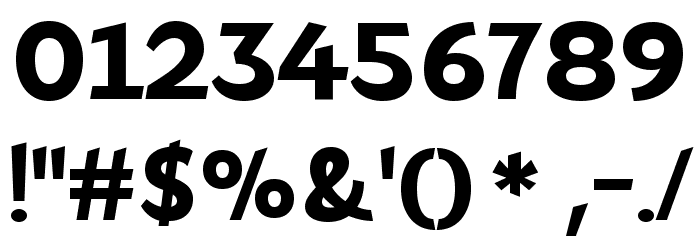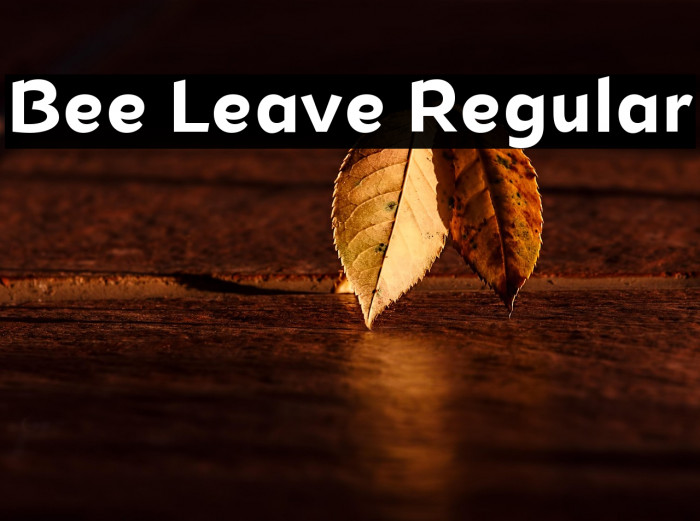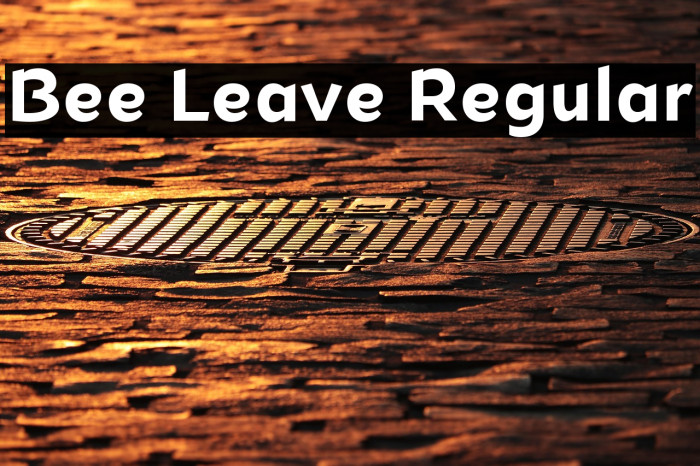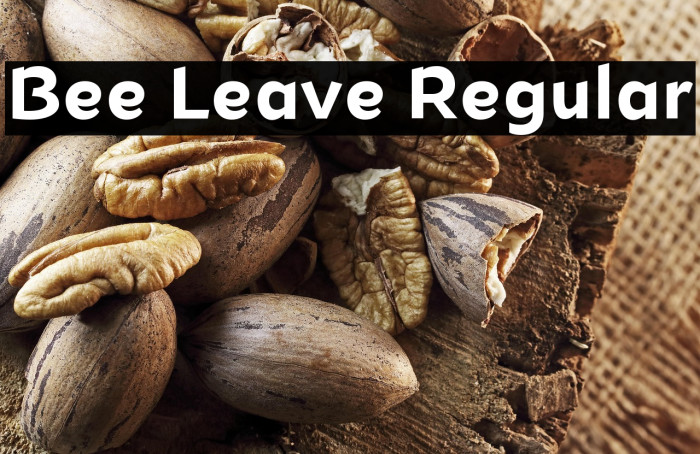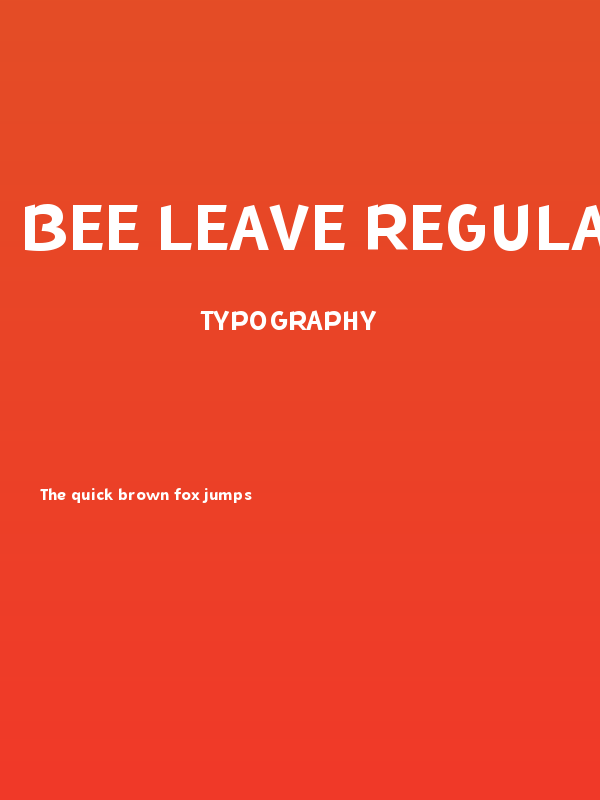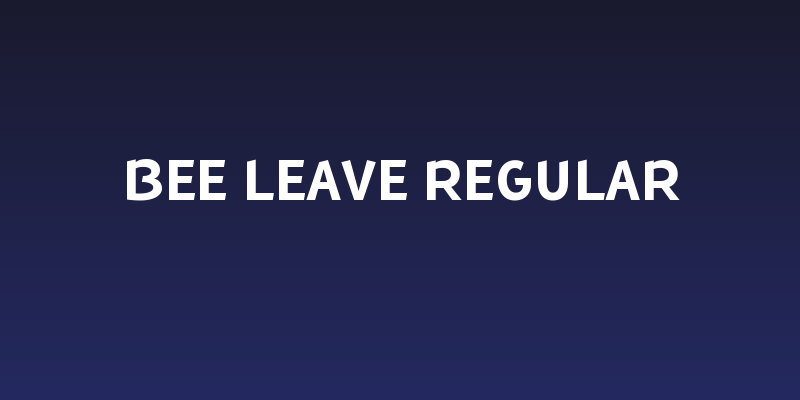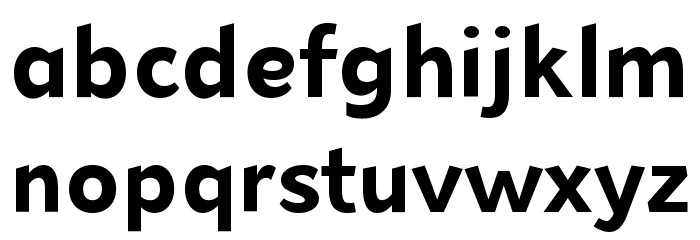
Bee Leave Regular Font
Bee Leave Regular Description
This font features a bold and modern sans-serif style with clean, geometric lines. The uppercase letters are strong and assertive, while the lowercase letters maintain a consistent weight and structure, providing a harmonious balance. The numerals are clear and easy to read, making them suitable for various applications. Special characters are well-defined, enhancing the font's versatility. The overall appearance is sleek and professional, ideal for contemporary design projects.